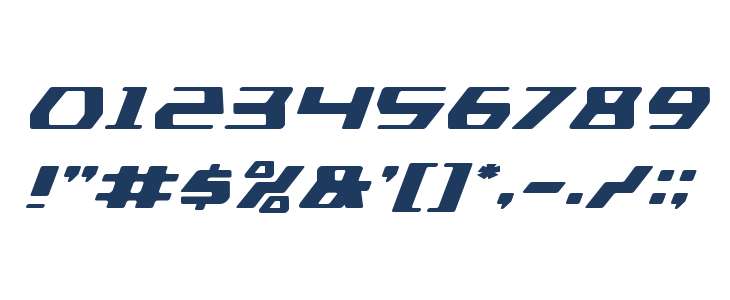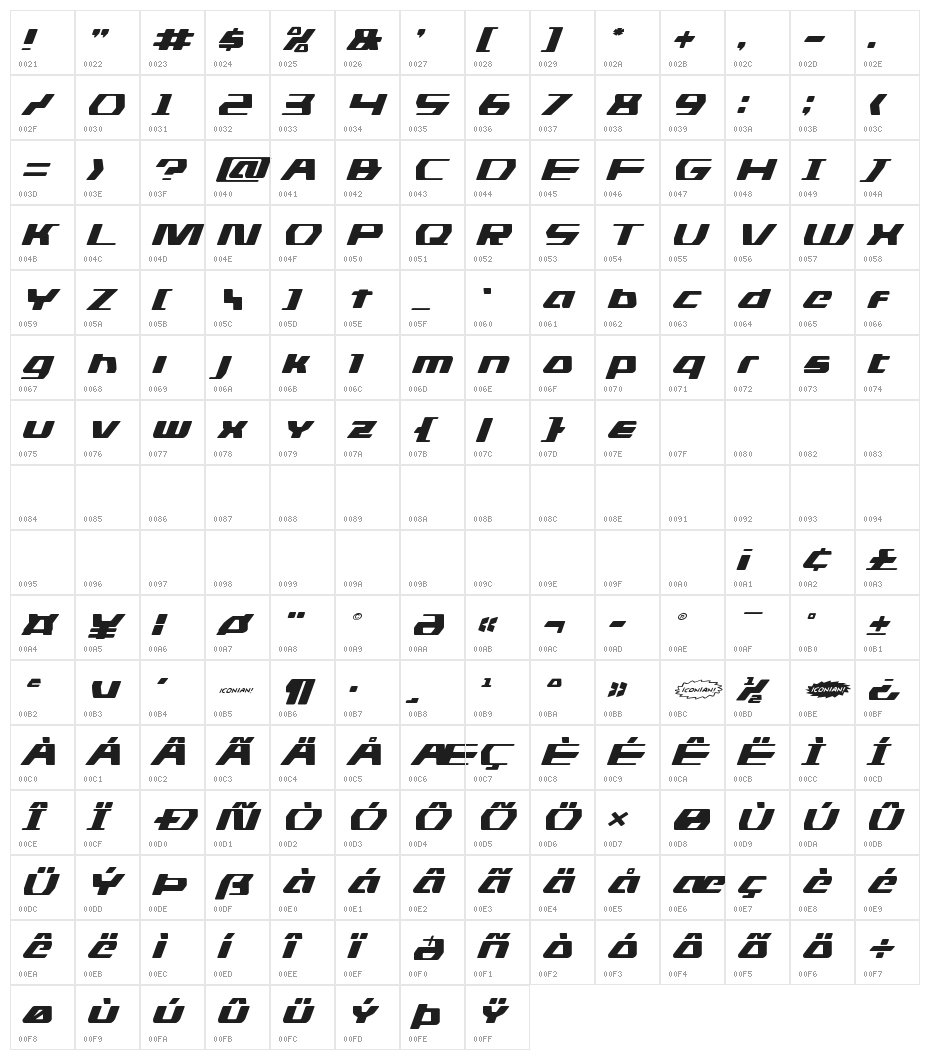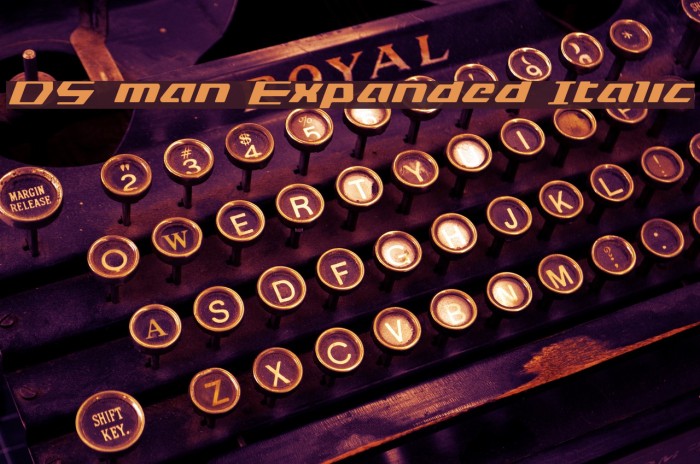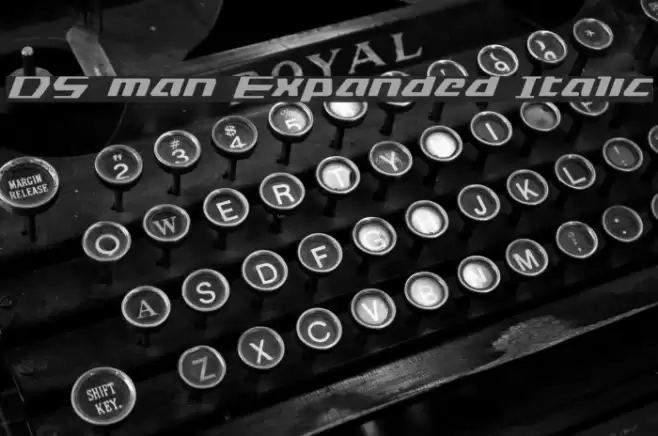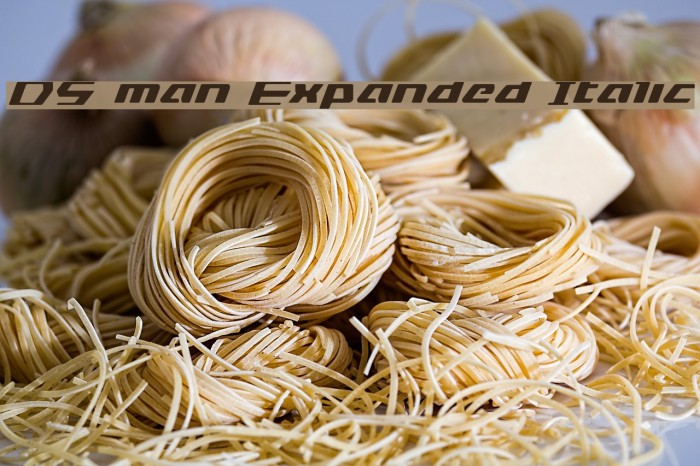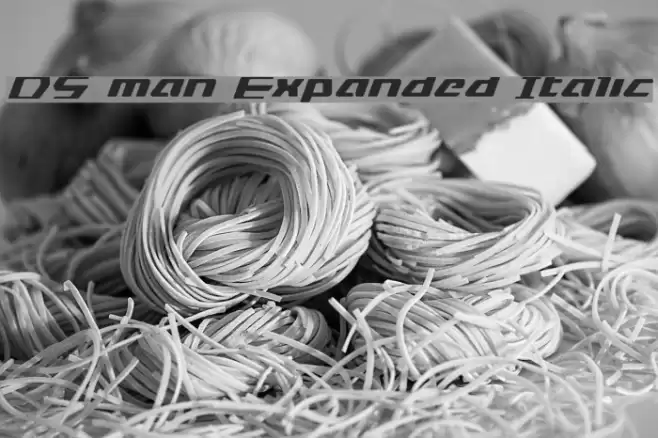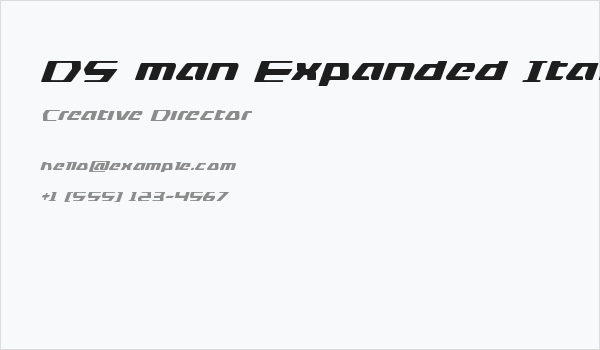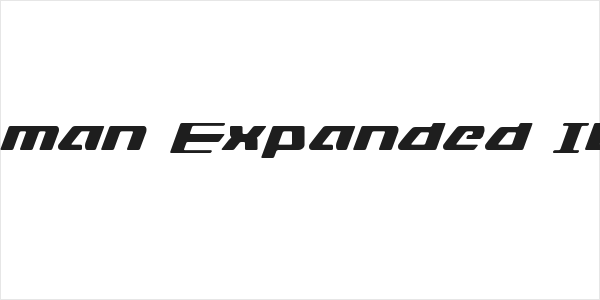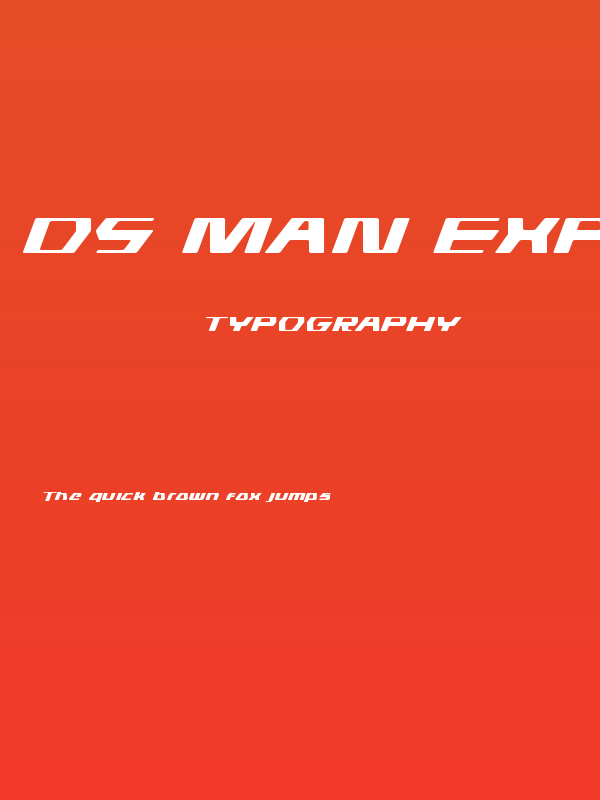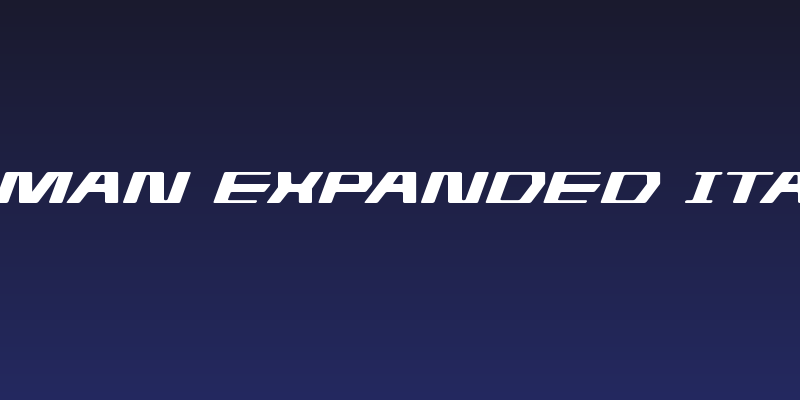
DS man Expanded Italic Font
DS man Expanded Italic Description
This font features a bold and dynamic style with a distinctly modern flair. The characters are italicized and expanded, giving them a sense of motion and energy. The angular and geometric shapes of the letters create a futuristic and edgy appearance. The uppercase and lowercase letters maintain a consistent style, with sharp edges and a slight slant that enhances the italic effect. The numerals and special characters follow the same design principles, ensuring uniformity across all glyphs. This font is ideal for projects that require a strong visual impact and a contemporary aesthetic.